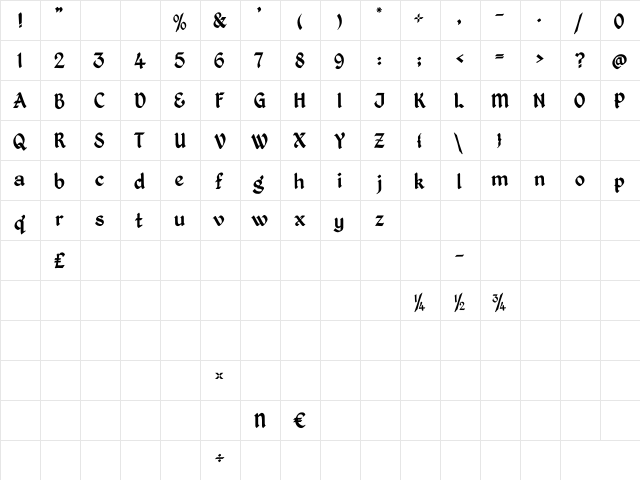
Kingthings Petrock Regular
Design Context for Kingthings Petrock Typeface
Kingthings Petrock takes a measured approach to typography — its balanced proportions and neutral character make it a reliable workhorse for both digital and print work. Its slender proportions lend an understated elegance to any composition.